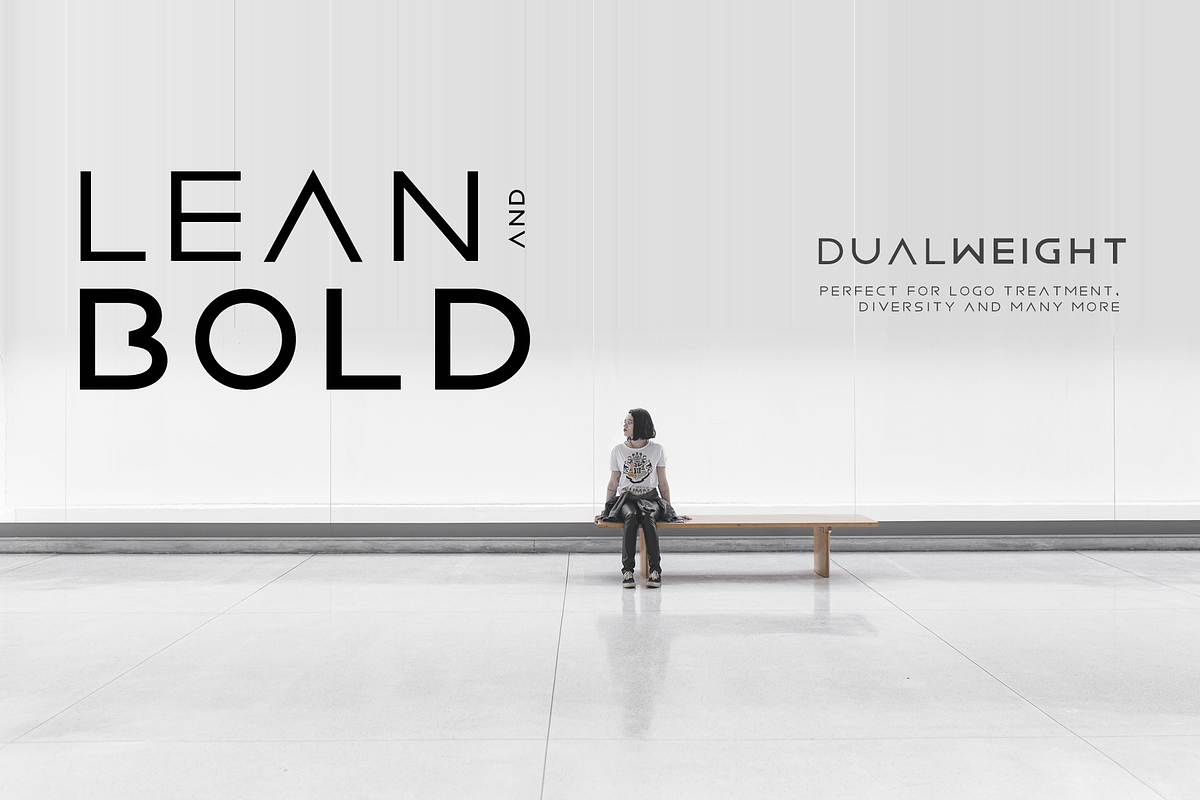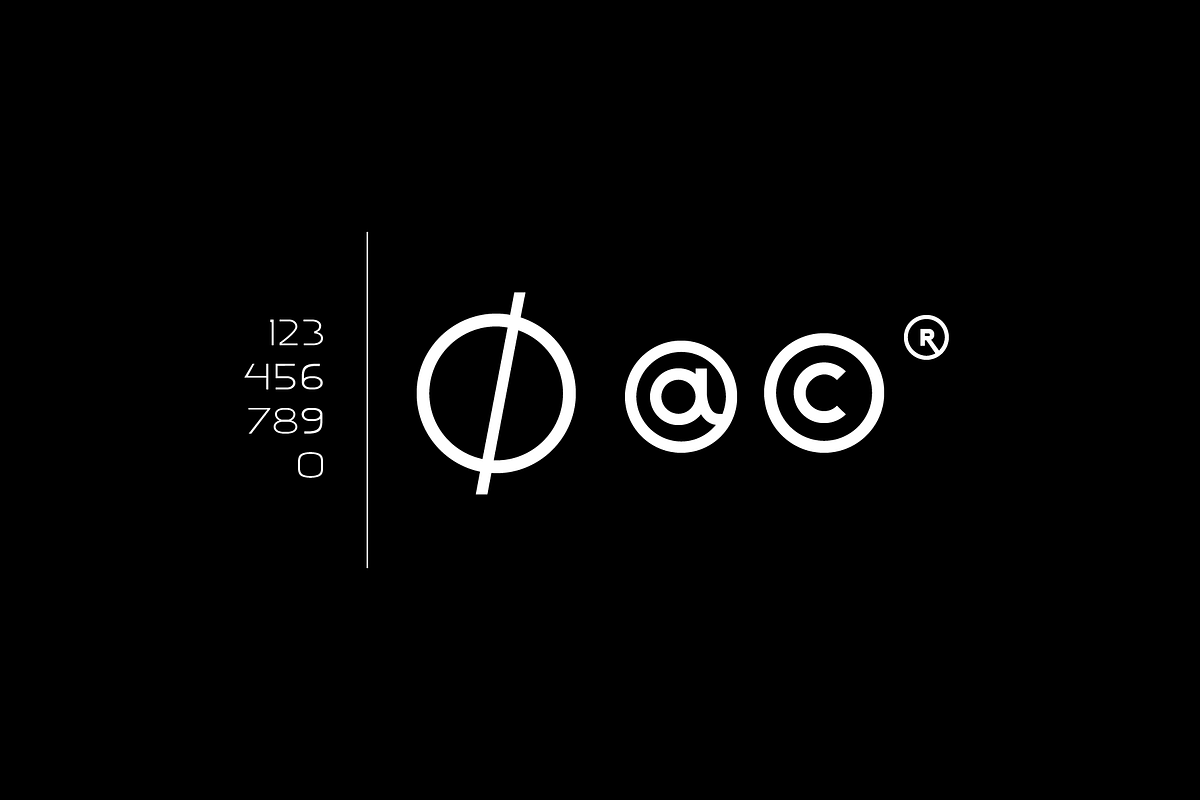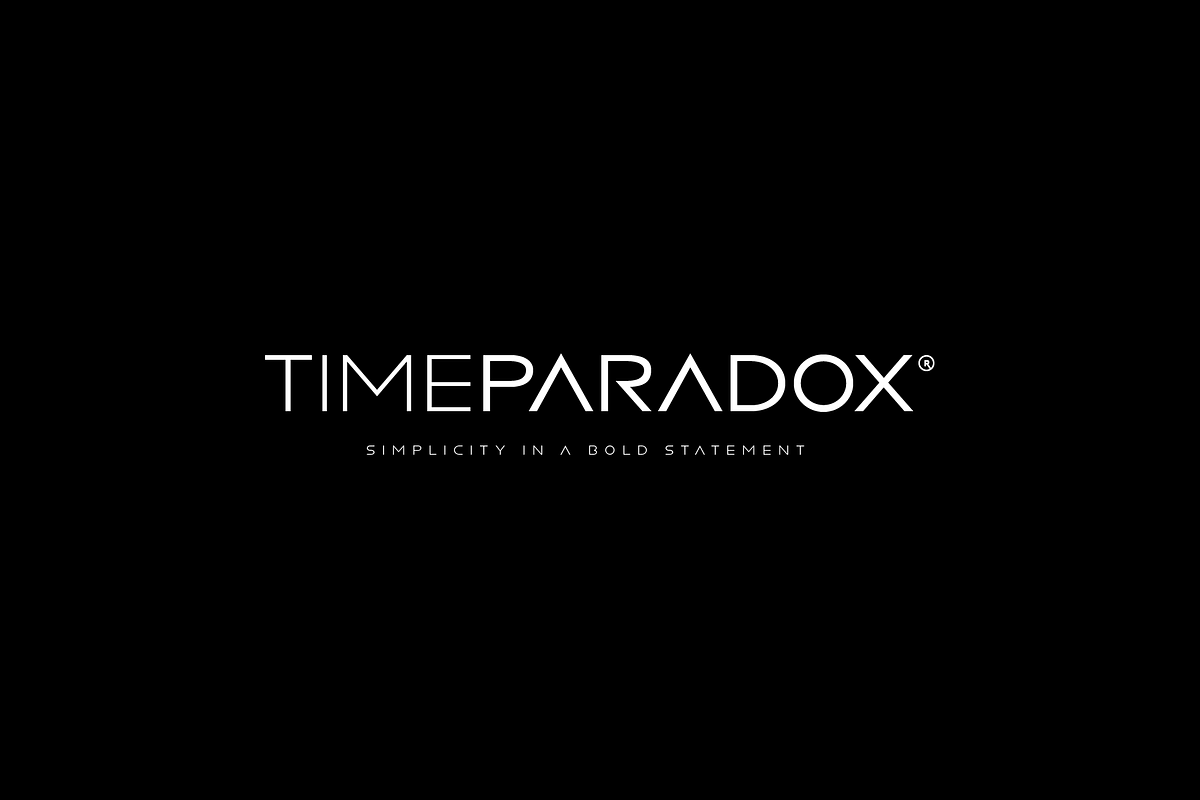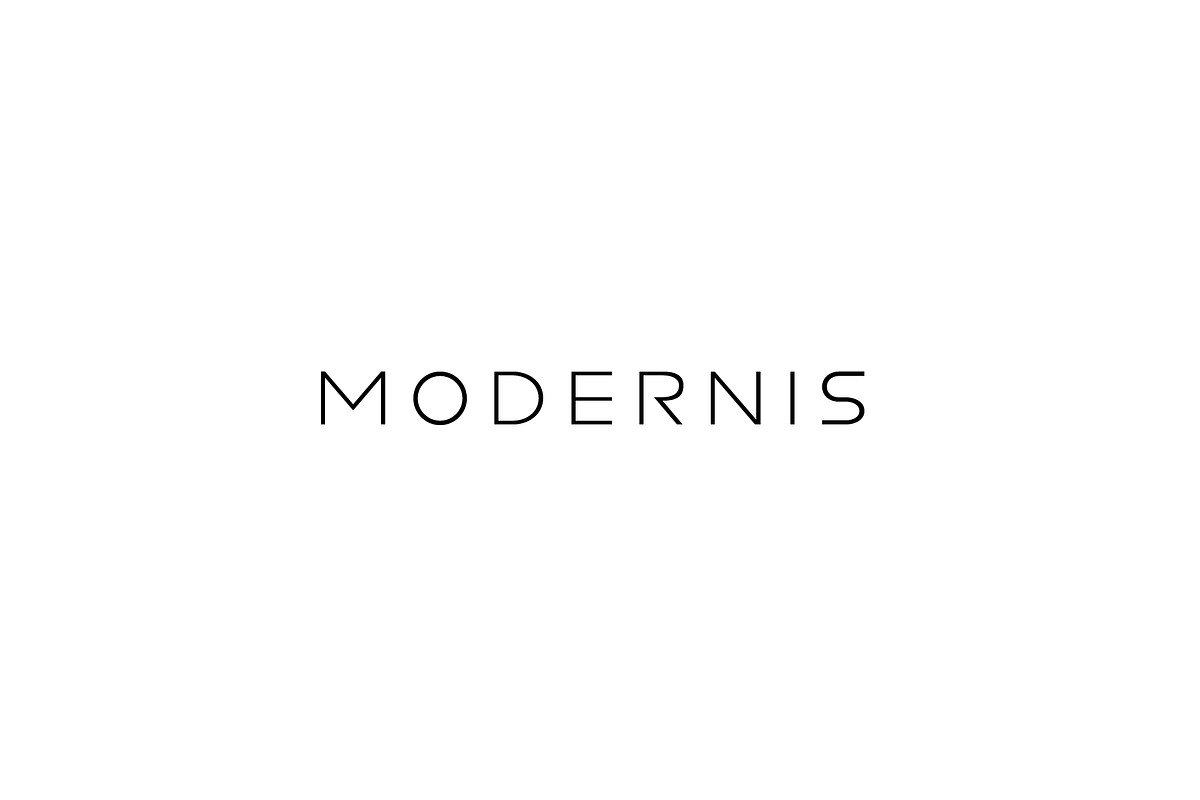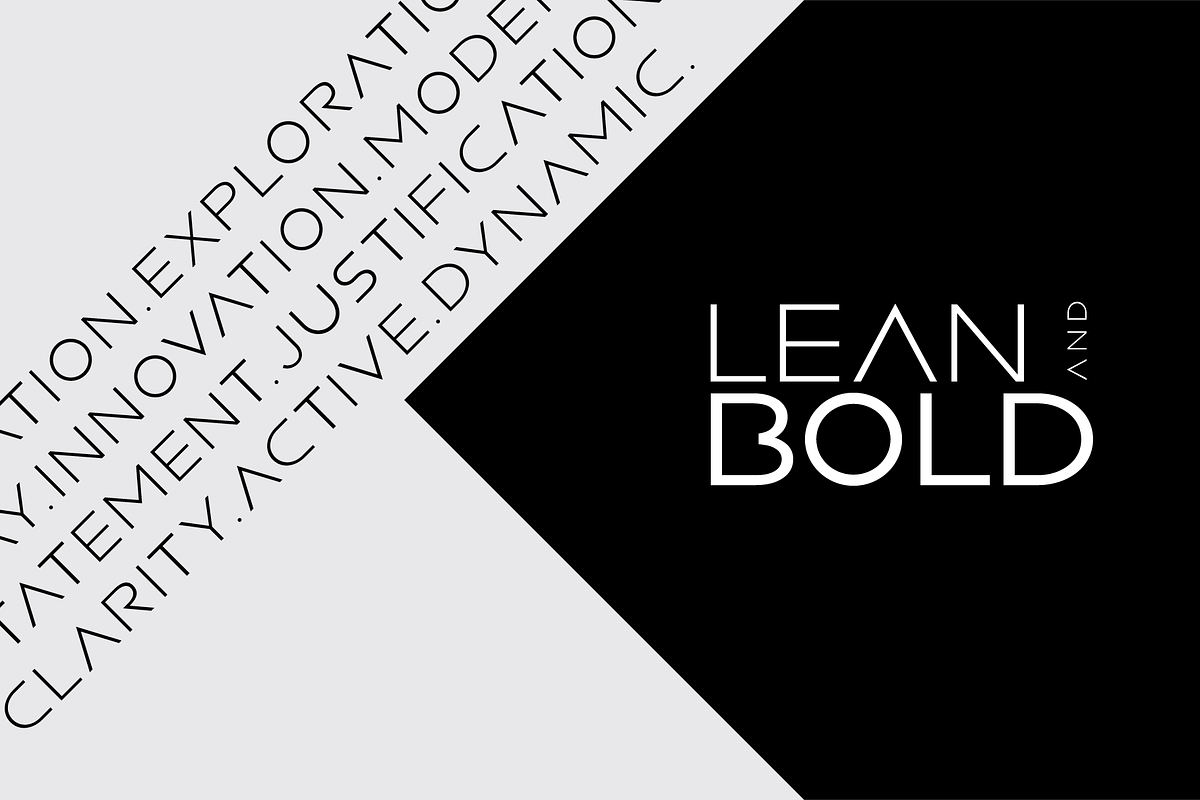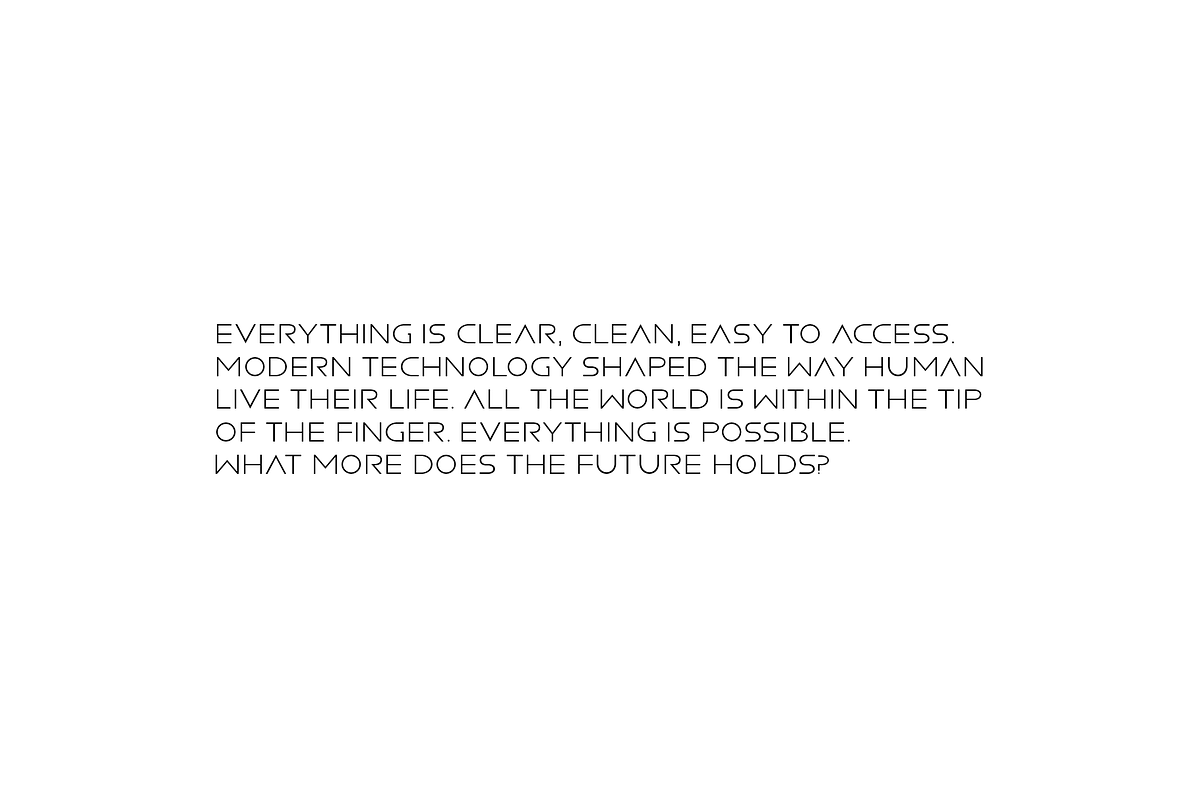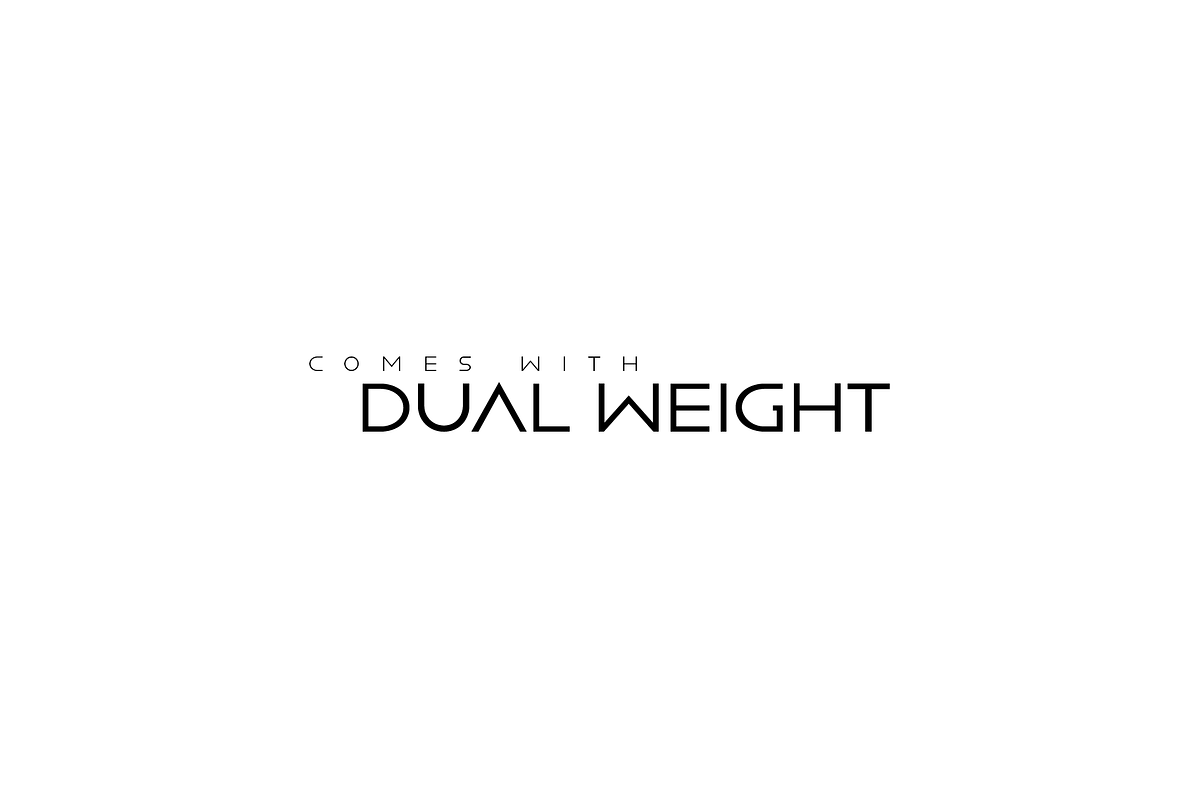
Modernis - Modern Minimalist Font
A clean modern minimalist font, perfect for logo, headline, display, and many other. Comes with two weight, bold and lean.
complete basic latin for multilanguage
- Comes with two weight, bold and lean.